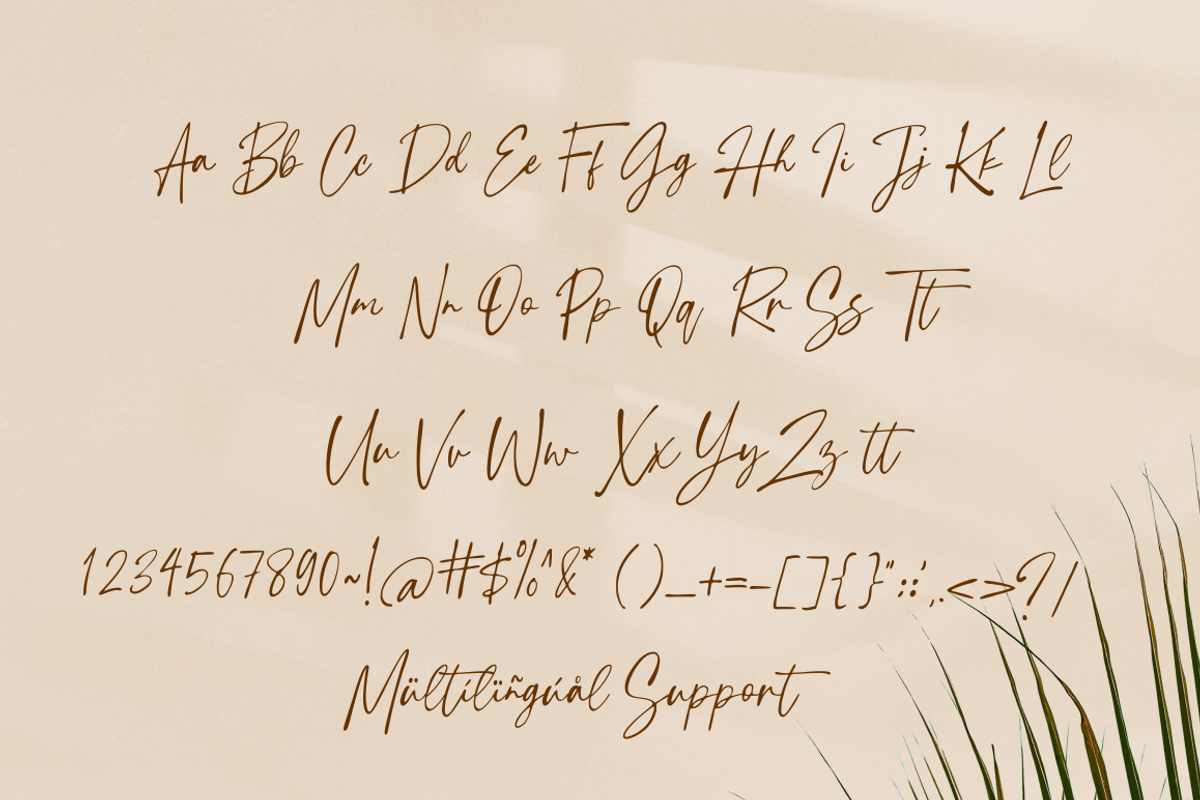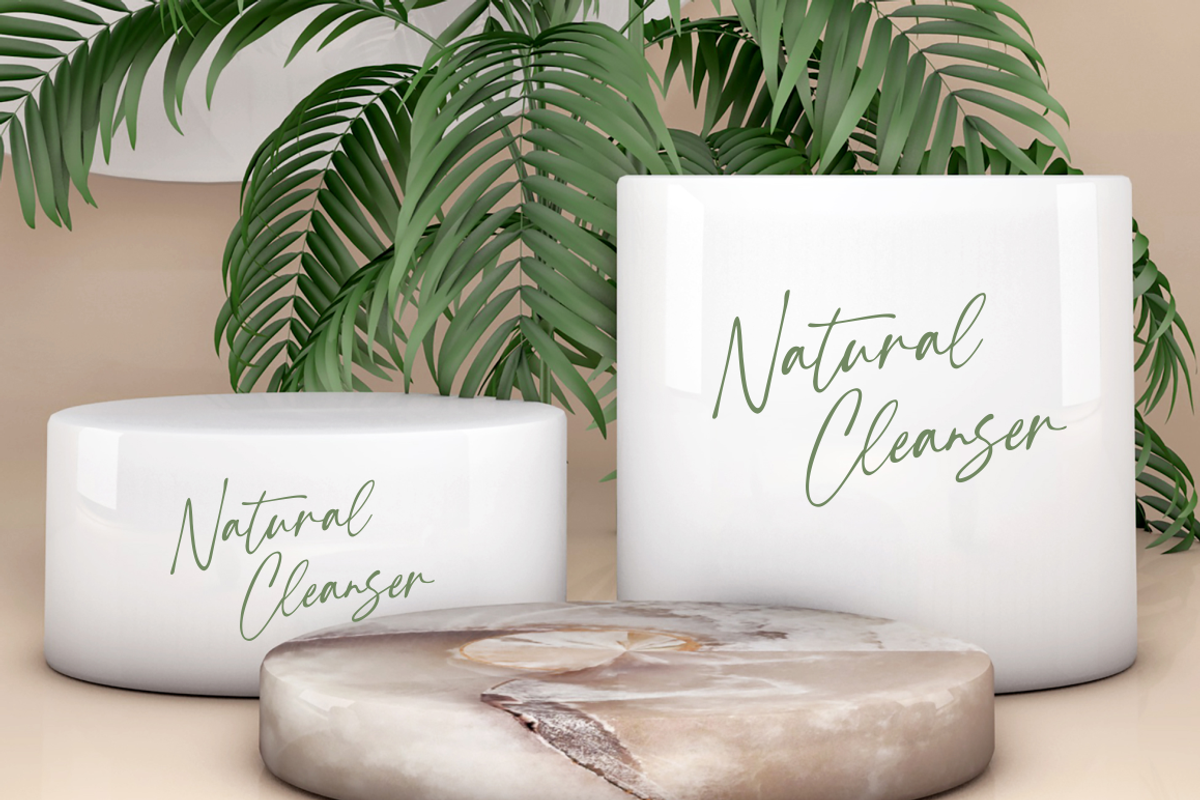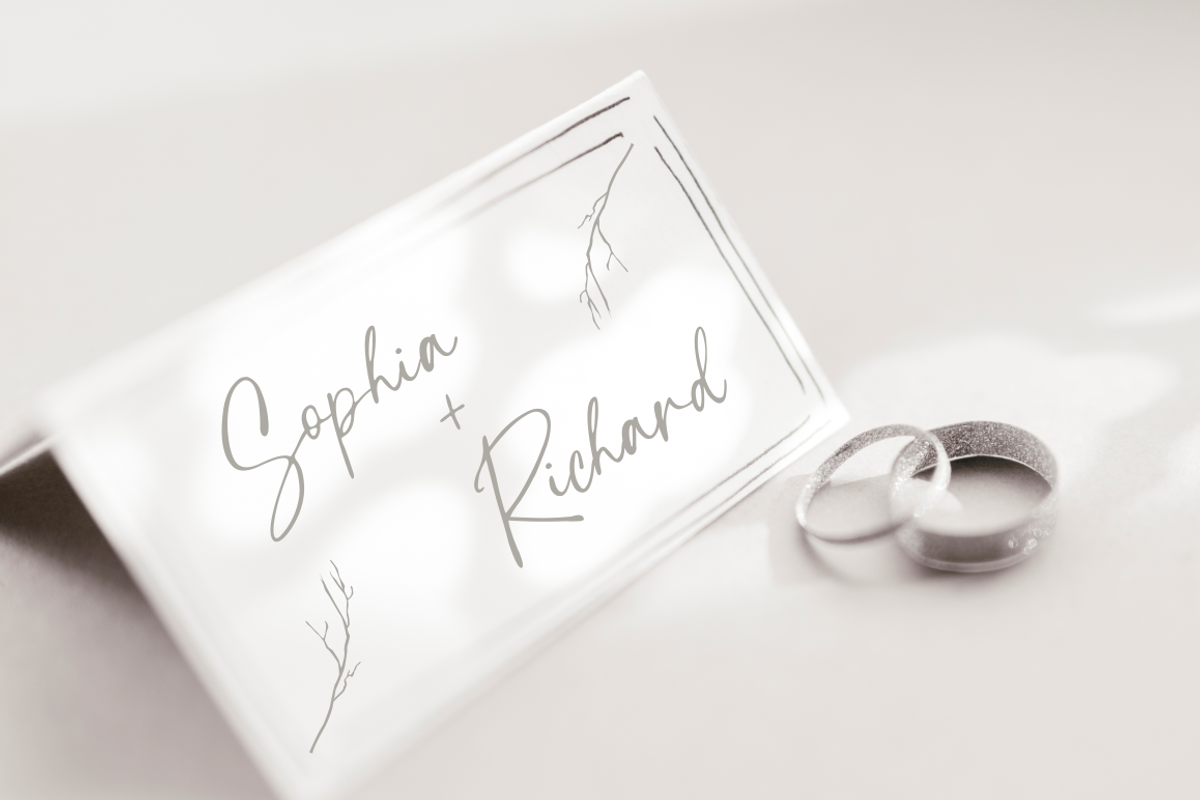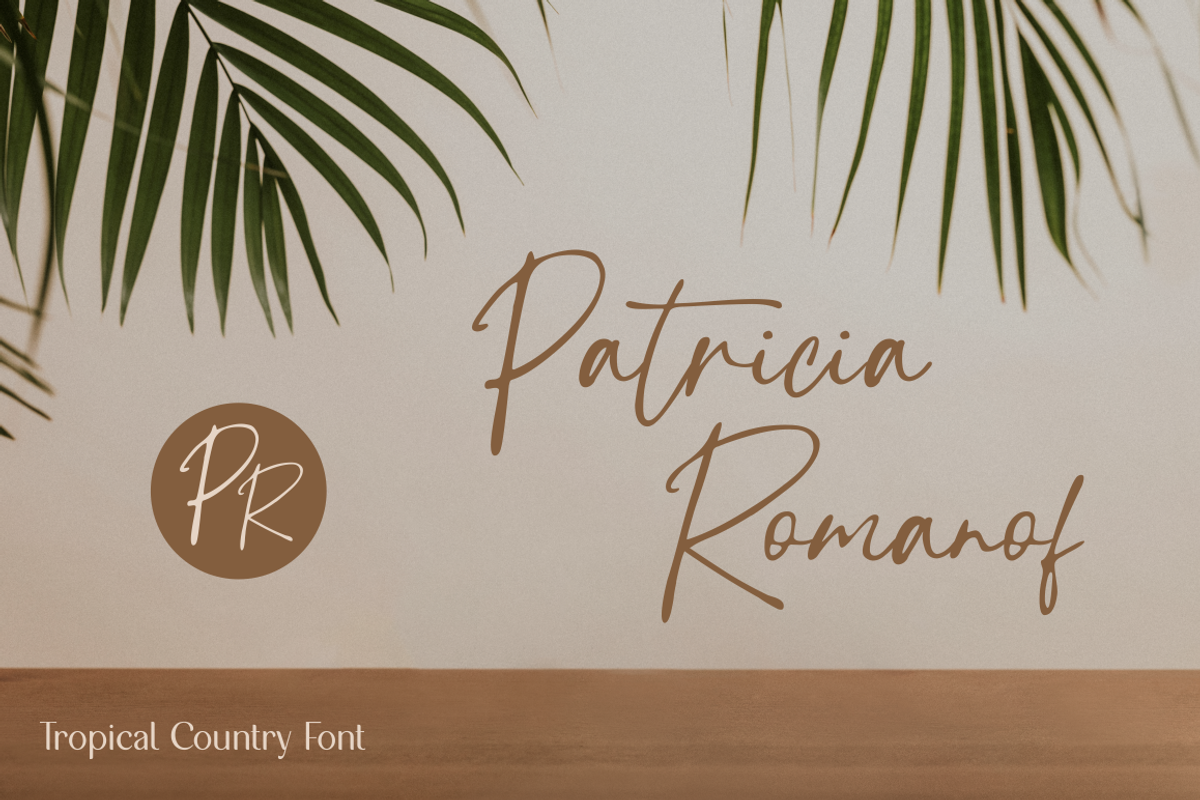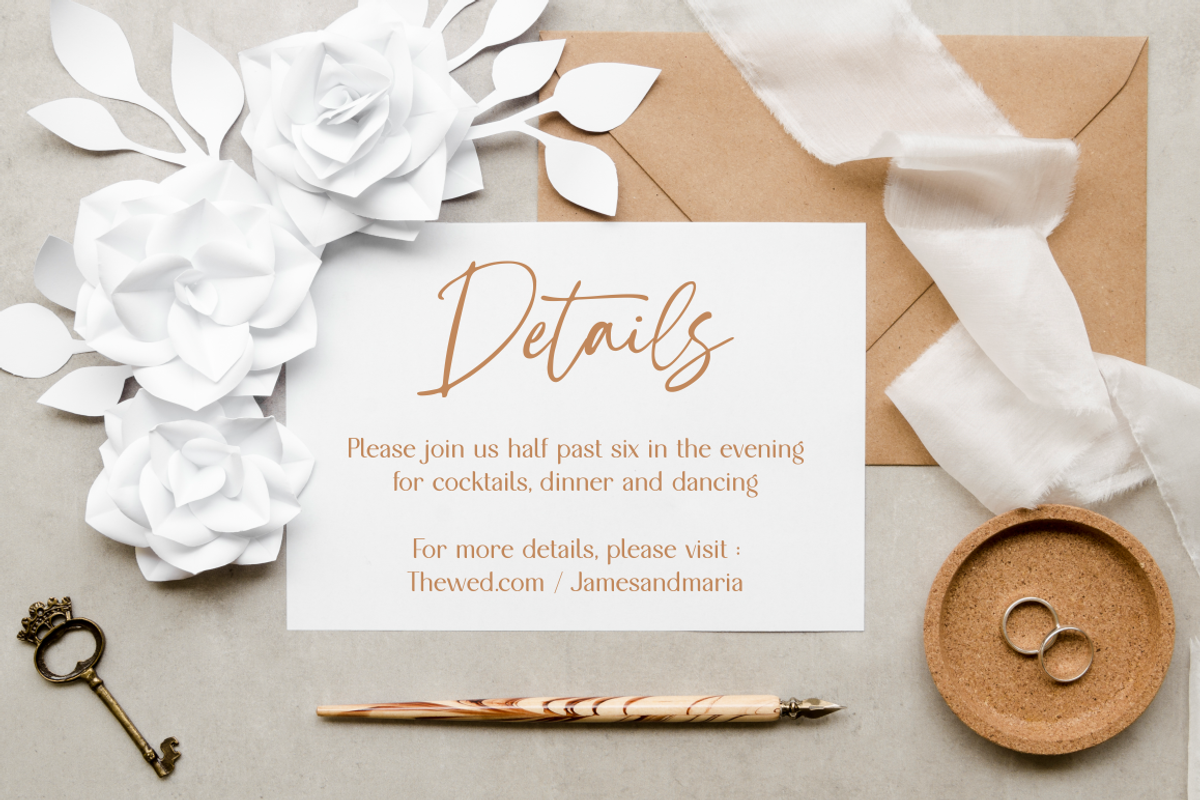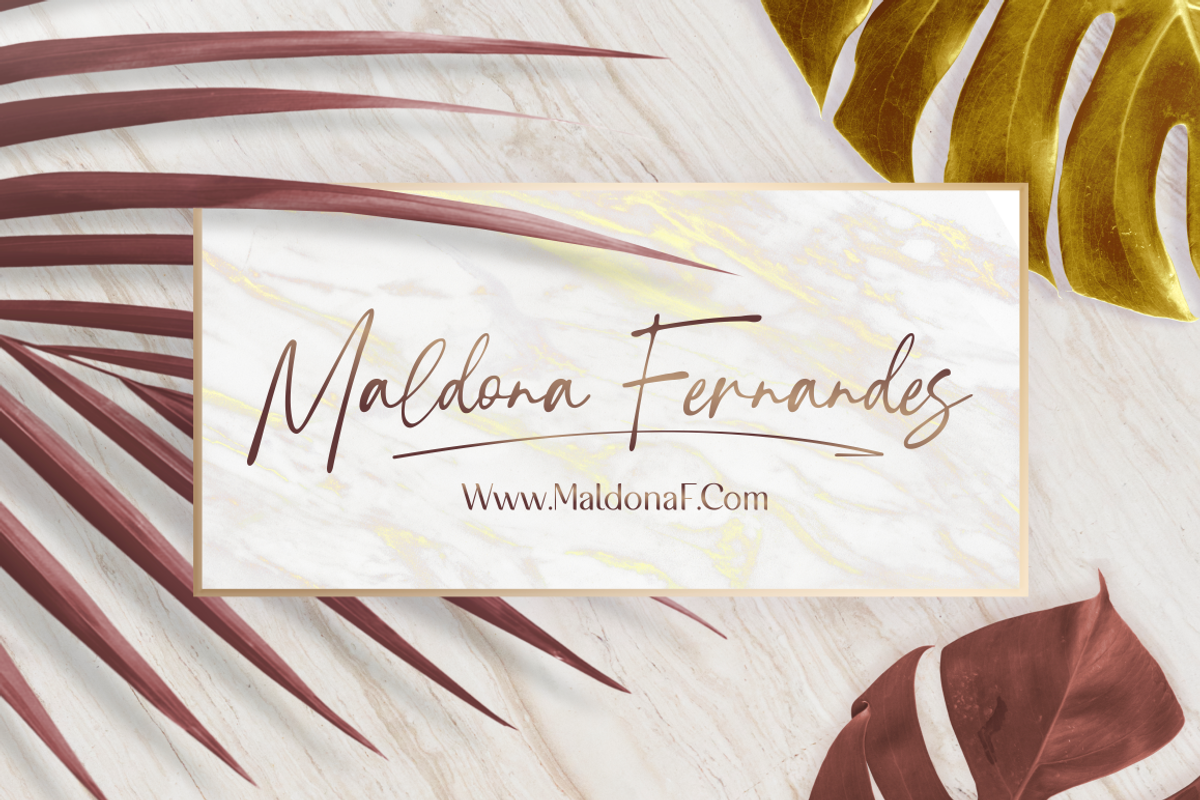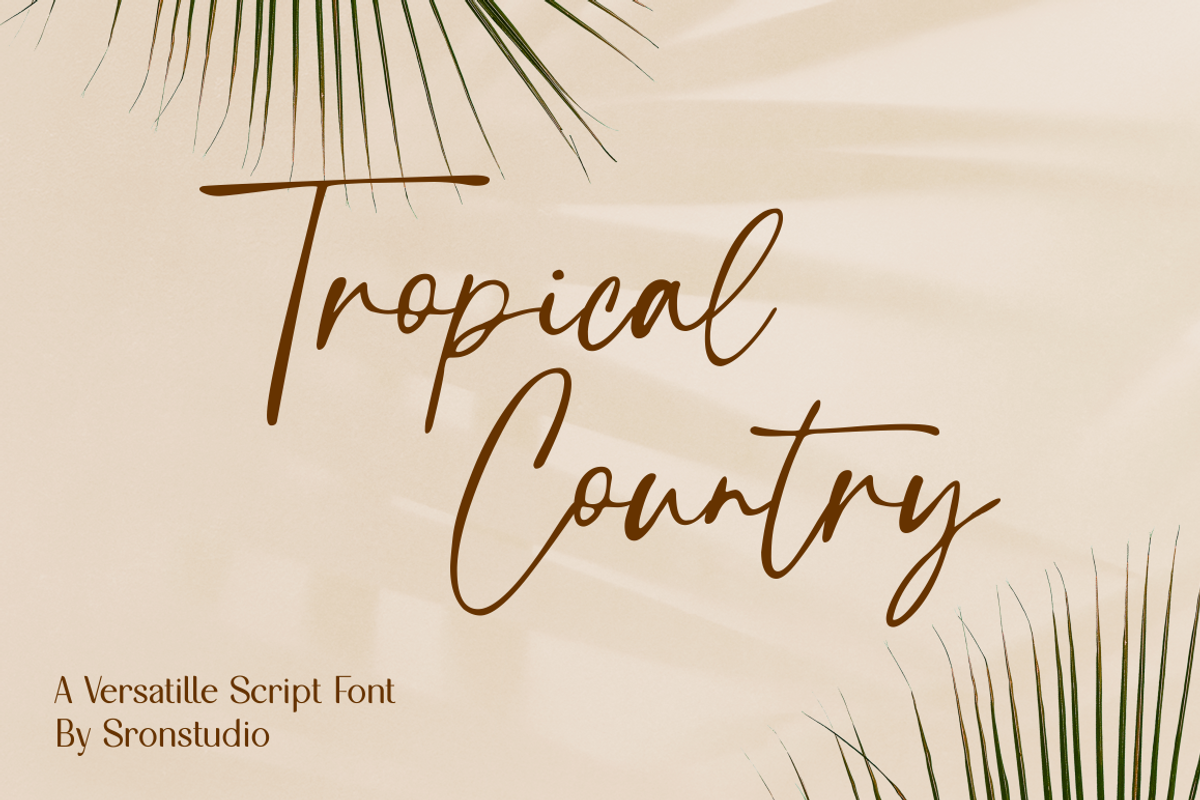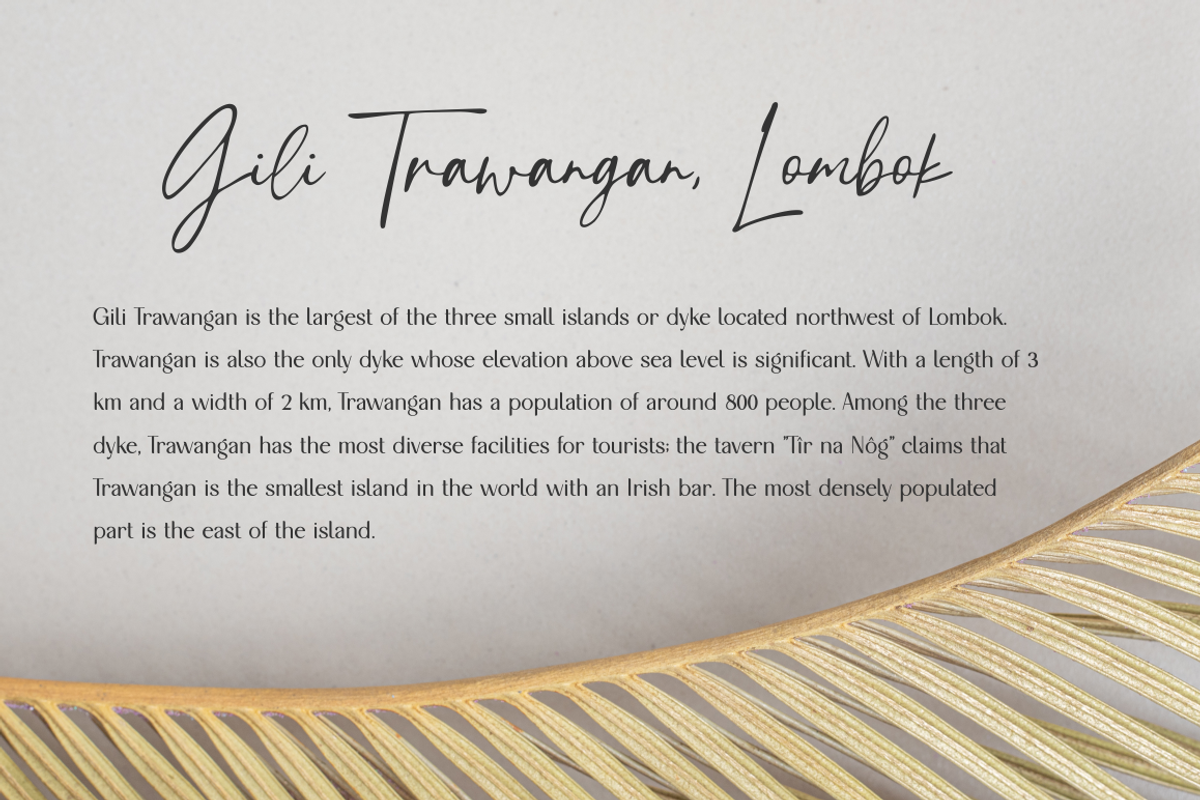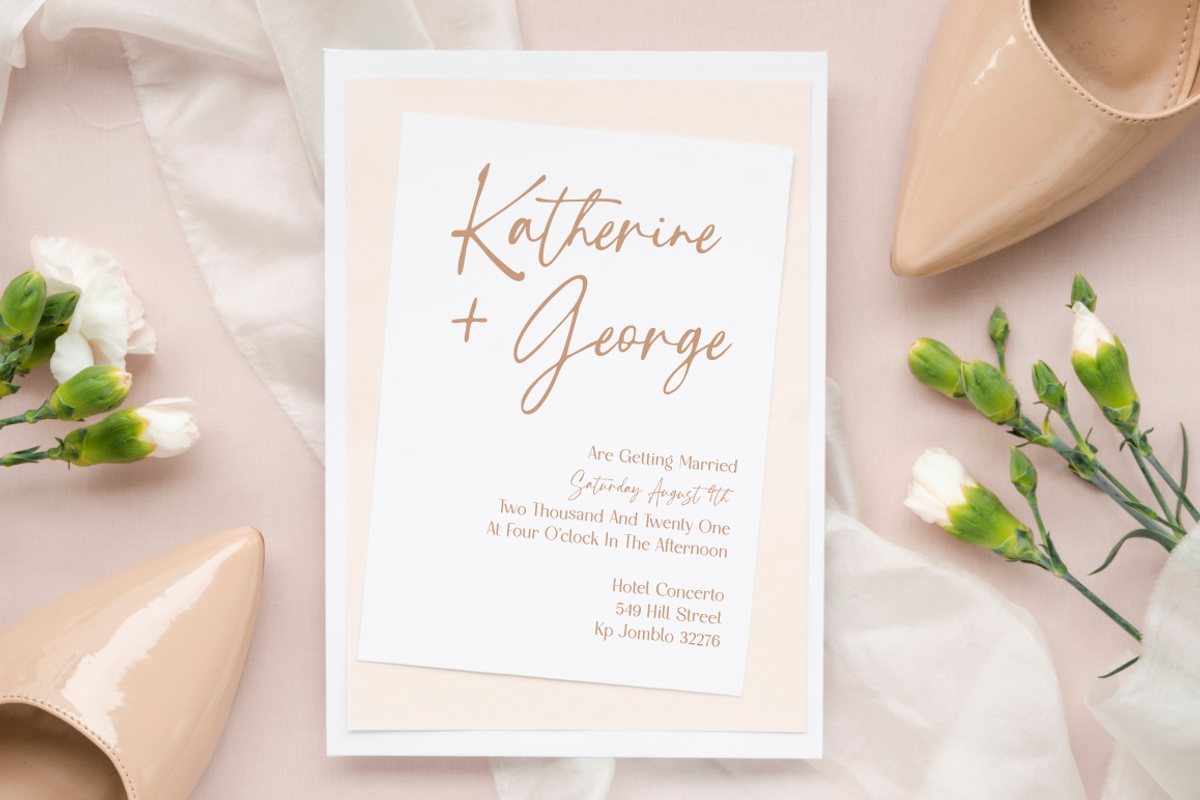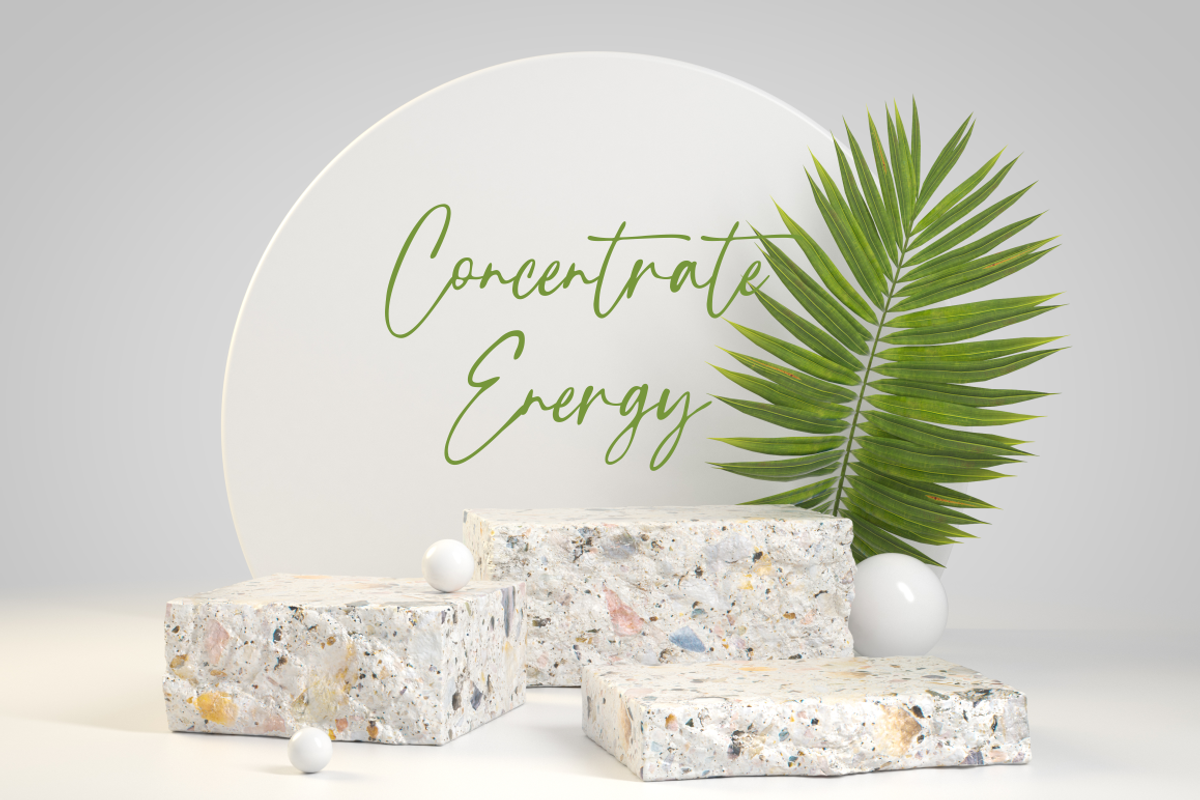
Tropical Country - Handwritten Font
Tropical Country – Handwritten Font, this font is perfect for branding, invitation, stationery, wedding designs, social media posts, advertisements, product packaging, product designs, label, photography, watermark, special events, and more.
- Uppercase and lowercase letters
- Multilingual, numerals, and punctuation